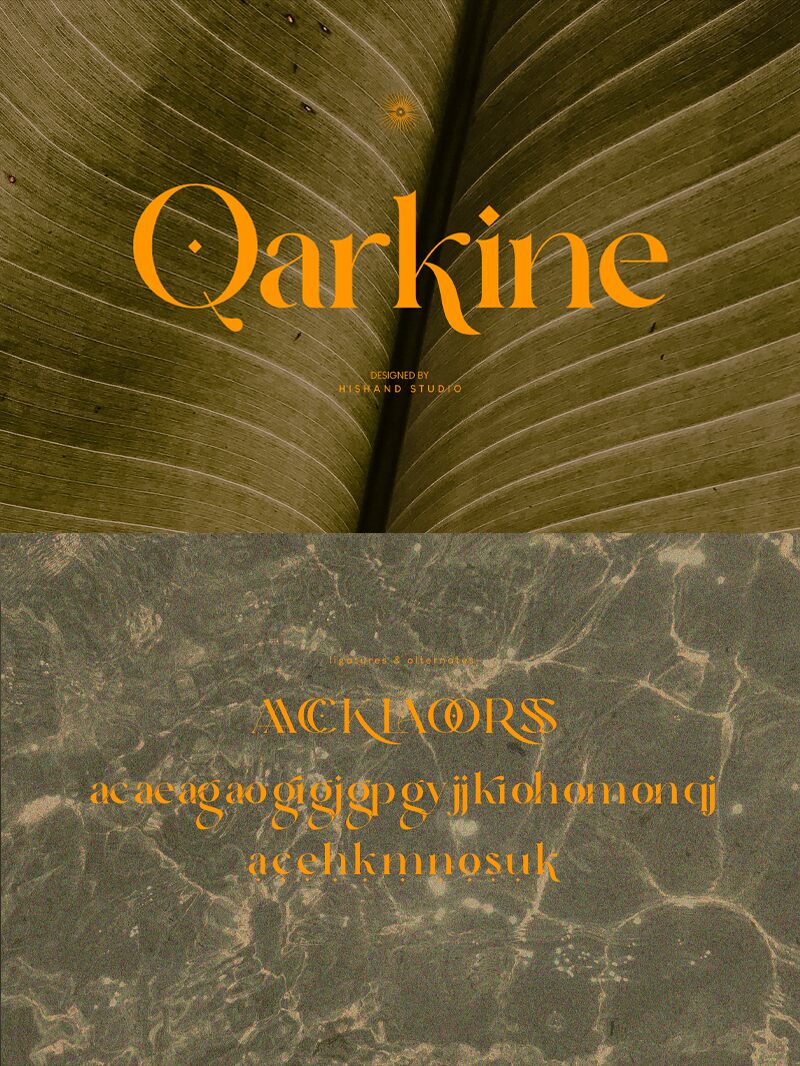
Qarkine font by Hishand Studio is a captivating serif typeface that combines elegance with distinctive flair. Its graceful curves and refined serifs lend an artistic touch, while the slightly expanded character design creates a sense of grandeur. This free font offers a perfect balance between classic sophistication and modern creativity.
Designed for versatility, Qarkine is ideal for branding projects, editorial layouts, and sophisticated invitations. Its unique style ensures that it stands out in any context, making it a valuable addition to every designer’s toolkit.